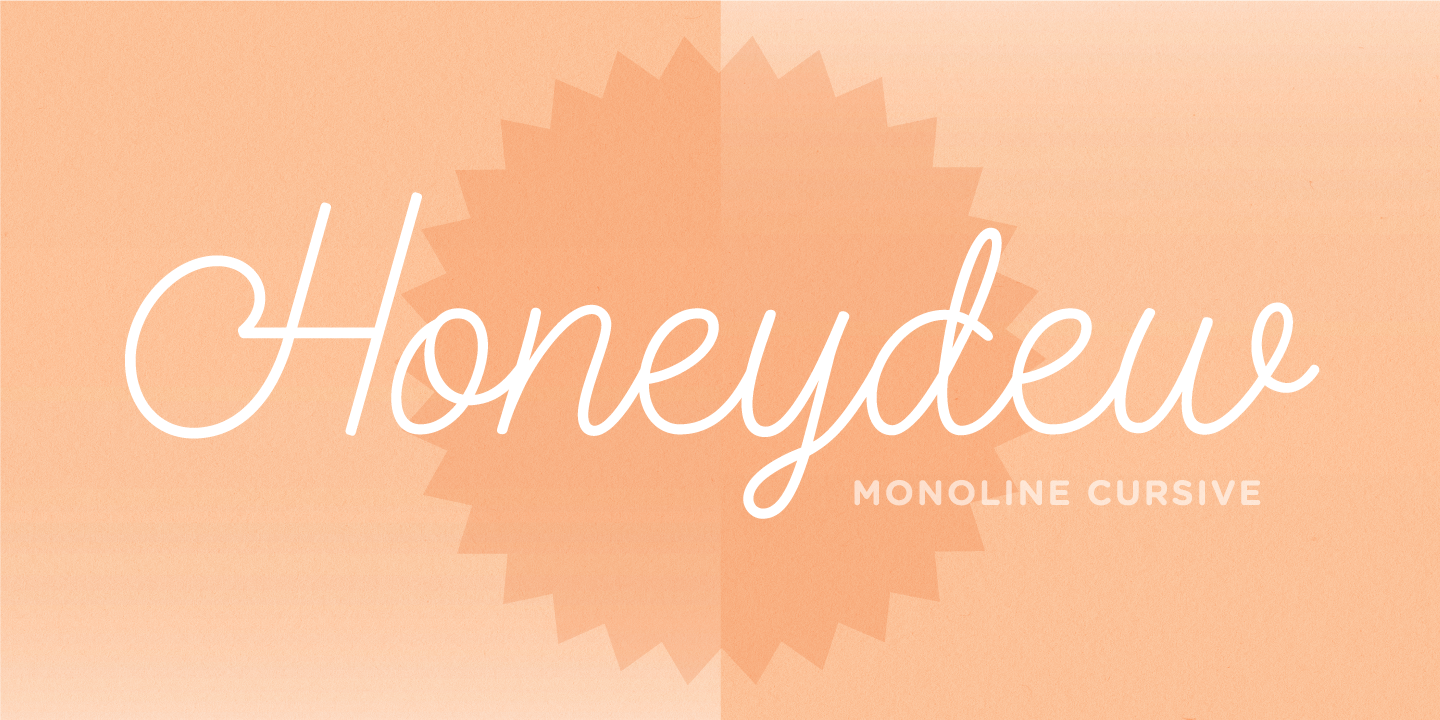
Honeydew Font is perfect for organic food branding, natural skincare products, wellness centers, children's books, spring fashion campaigns, eco-friendly packaging, botanical illustrations, and lifestyle blogs that require soft, refreshing typography with gentle, approachable character and natural charm.
What makes Honeydew Font exciting is its delightful balance of sweetness and sophistication. This charming typeface features smooth, rounded curves that evoke freshness and vitality, making it ideal for brands seeking to communicate natural beauty, health, and positive energy while maintaining professional appeal and readability.
The Honeydew Font family includes light, regular, and bold weights, complemented by playful script variations for decorative applications. Each style preserves the font's characteristic warmth and friendliness while providing designers with versatile tools for creating harmonious layouts and engaging brand communications.
Creative professionals consistently choose Honeydew Font Free Download for projects requiring gentle appeal and natural authenticity. This versatile typeface seamlessly adapts to various design contexts while maintaining its distinctive freshness, ensuring brands connect with audiences seeking organic, wholesome, and environmentally conscious products and services.
The font's organic curves and balanced proportions make it particularly suitable for health and wellness sectors. Honeydew Font delivers exceptional visual warmth while maintaining excellent legibility, offering designers a reliable solution for creating memorable brand experiences that communicate care, quality, and natural goodness across diverse marketing platforms.